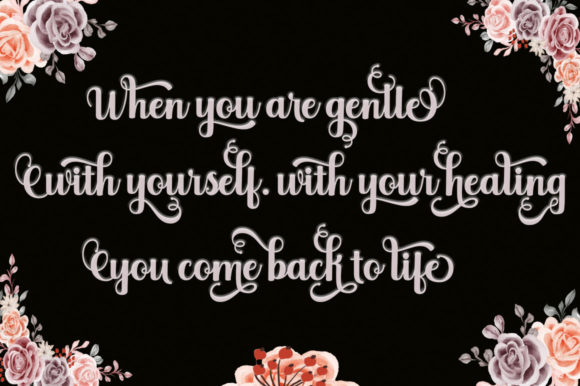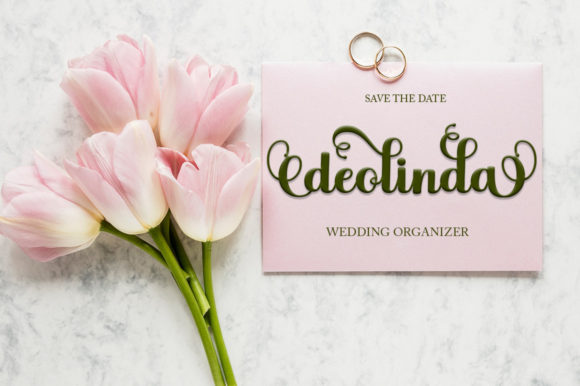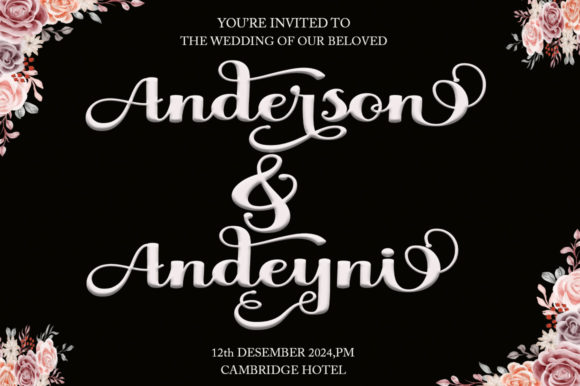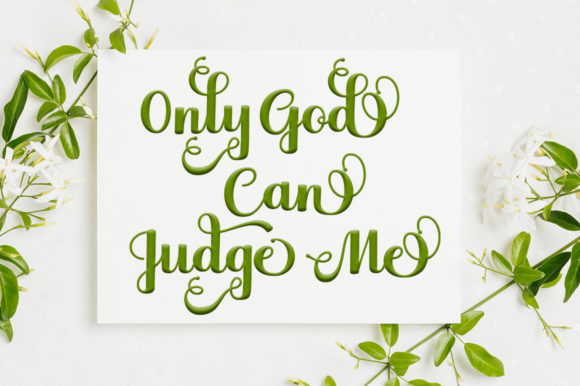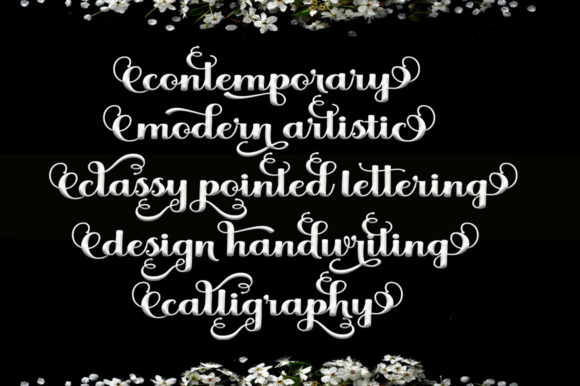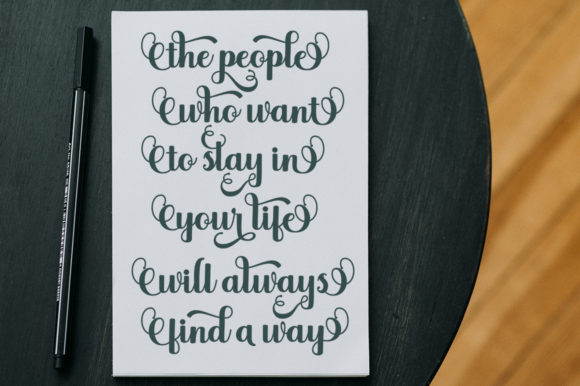
Introduction to Martha Script Font
As a designer, there’s nothing quite like the thrill of bringing a creative project to life. Whether it’s a wedding invitation, a heartfelt thank you card, or a beautifully crafted logo, the right font can make all the difference. And when it comes to adding a touch of elegance and charm, the Martha Script Font is a game-changer.
With its stunning combination of sophistication and whimsy, the Martha Script Font is the perfect design resource for any creative project. From free downloads to high-quality typography, this versatile font is sure to elevate your work and leave a lasting impression. And with its transparent background and PUA encoded glyphs, accessing all the swashes and flourishes is a breeze.
Key Features of Martha Script Font
- High-quality, elegant script font ideal for creative projects, offering a touch of sophistication and elegance.
- Features a transparent background, allowing for seamless integration with various design elements and backgrounds.
- Includes a full character set, covering Latin, Cyrillic, and Greek alphabets, making it suitable for multilingual projects.
- Available in a single weight, with a minimum font size of 12pt and a maximum font size of 72pt, and a resolution of 300 DPI.
- Perfect for use in various creative projects, including invitations, posters, logos, and more, adding a personal touch and style.
Honest Review: Martha Script Font
I recently had the chance to work with the Martha Script Font, and I must say, it’s a real gem for any designer looking for a high-quality, elegant font for their creative project. ✨
Here are some of the things that work well with the Martha Script Font:
- Elegant and sophisticated look
- High quality and crisp typography
- Perfect for creative projects, such as wedding invitations, menus, and more
One potential limitation of the Martha Script Font is its limited character set. ⚠️ While it’s perfect for headings and titles, it may not be the best choice for body text or long blocks of text.
Design Tips
To get the most out of Martha Script Font, use it in creative projects that require a high-quality, elegant touch. The font is perfect for invitations, posters, and other design elements where a script font is desired. Remember to pair the font with a high-quality image or design element to create a visually appealing design.
The Martha Script Font is commonly used in wedding invitations, baby shower invitations, and other special occasion designs. It’s also used in branding and marketing materials where a elegant, high-end look is desired.